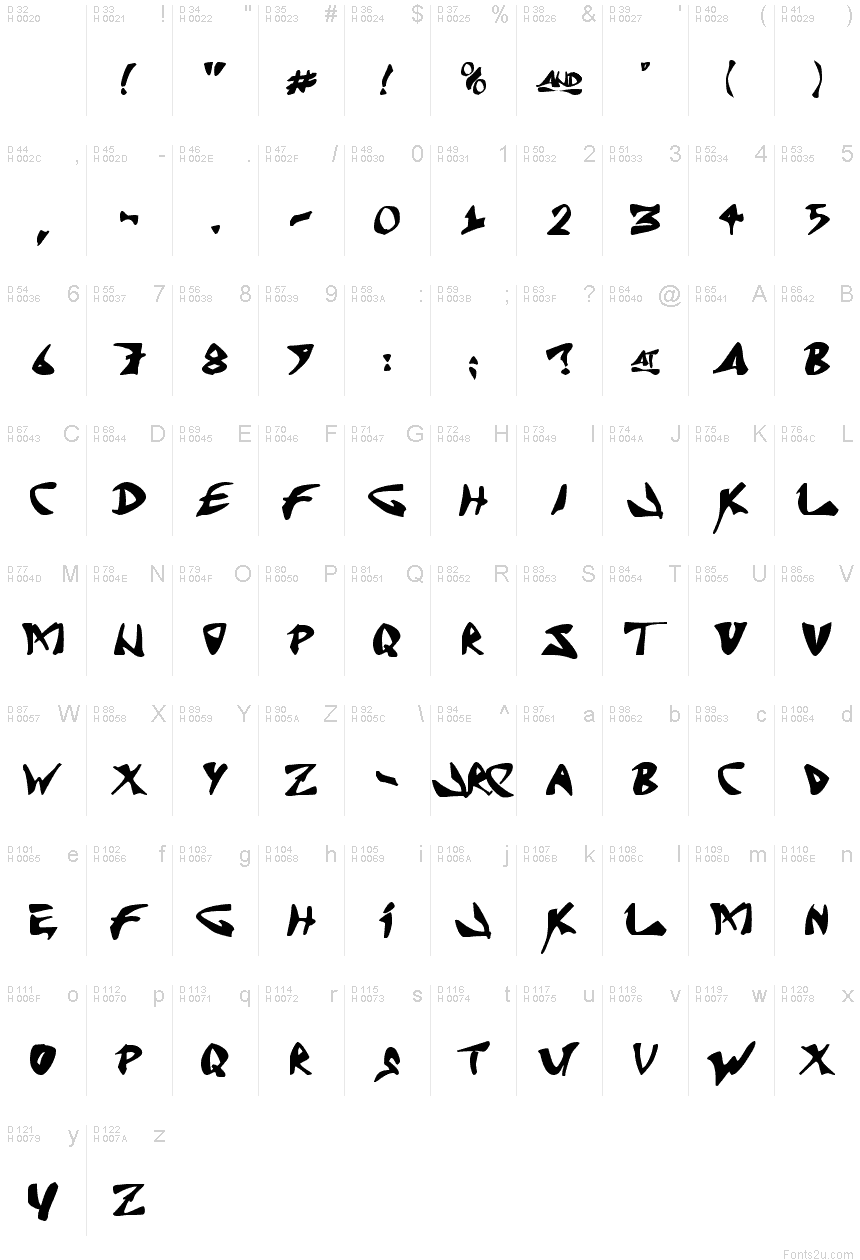
J Random C
J Random C font by Javan Bryant & Matt Chisholm is a free distorted display typeface with a wild, hand-drawn energy. Its chunky, inky strokes swell and pinch as if the letters are melting mid-motion, while the loose rhythm keeps every word looking unpredictable and alive. The result feels raw and underground—somewhere between street graffiti and warped cartoon titles.
Using J Random C, headlines instantly grab attention and refuse to blend into the background, which works beautifully for gig posters, DIY zines, skateboard or streetwear graphics, alt album covers, and offbeat event flyers. This free font also shines on bold YouTube thumbnails or stream overlays that need a chaotic, playful edge. Try pairing J Random C with a clean geometric sans in small text to keep the message wild but readable.